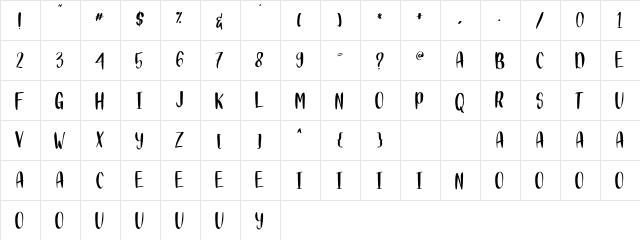
DIARY KIDIES Regular
| Designer | Sigit Dwipa |
Design Context for DIARY KIDIES Typeface
DIARY KIDIES is a composed and adaptable typeface that performs quietly and consistently across a wide range of design contexts.